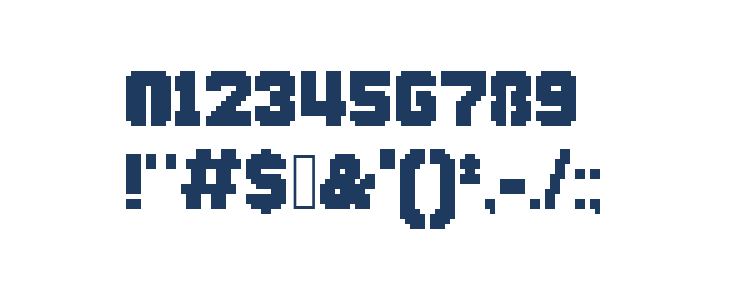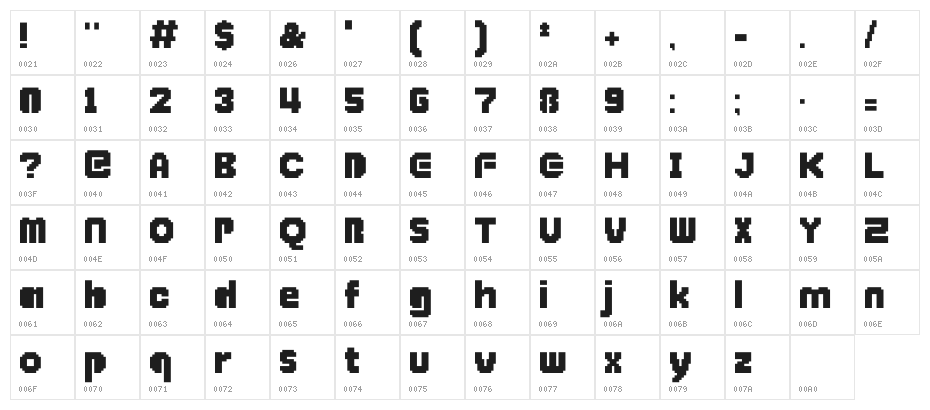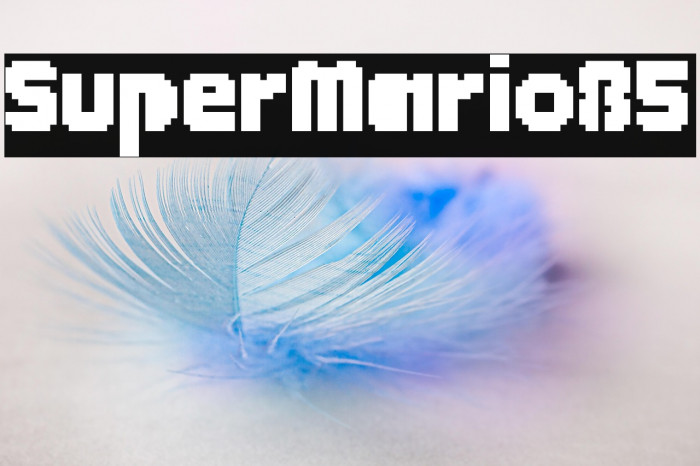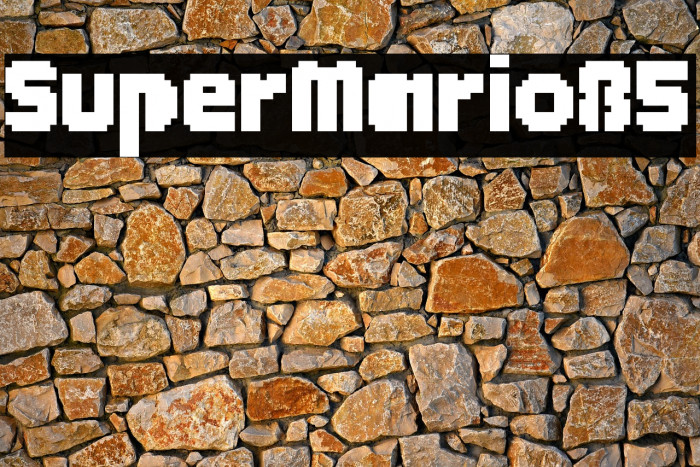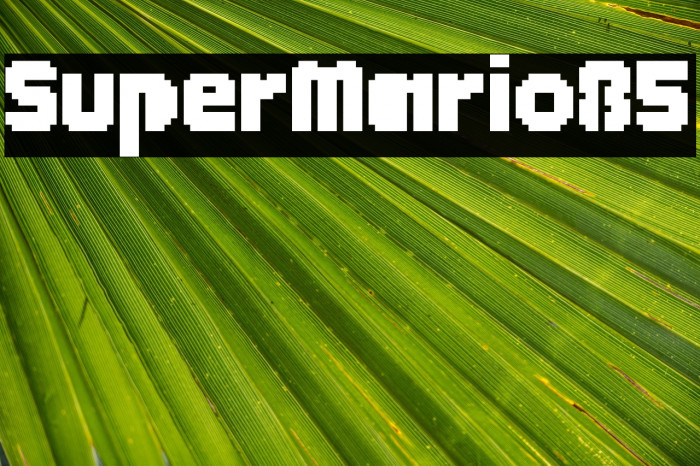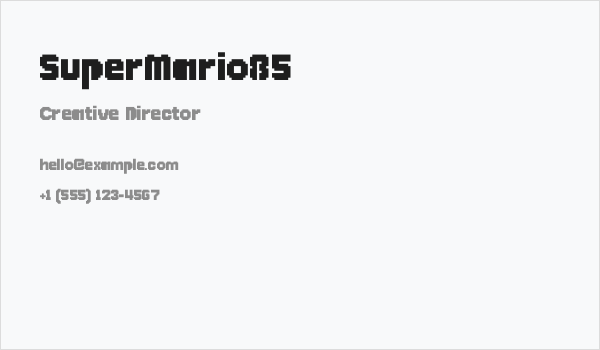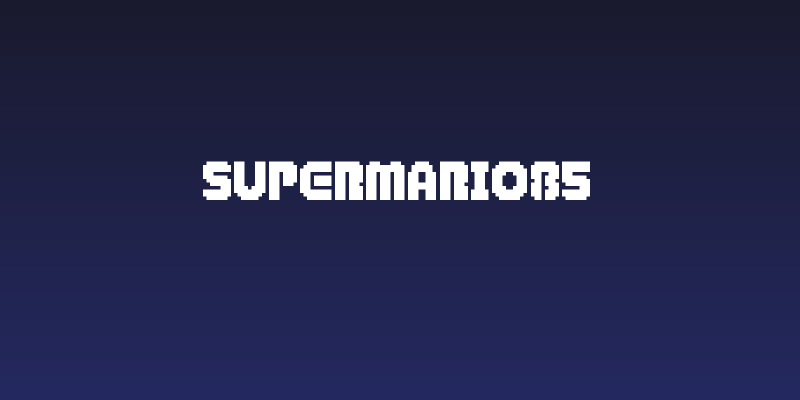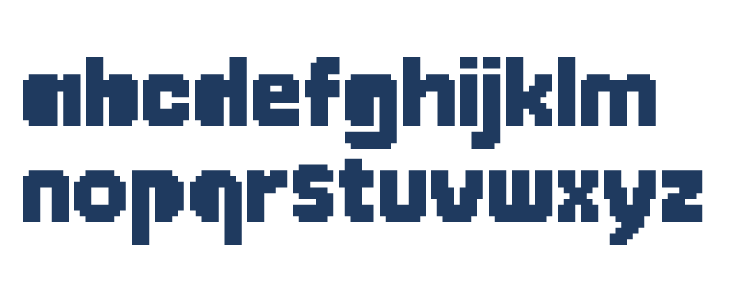
SuperMario85 Font
This font is a bold, pixelated typeface reminiscent of classic video game graphics. Each character is constructed with a blocky, grid-like appearance, giving it a retro, digital feel. The uppercase and lowercase letters maintain a consistent height, contributing to a uniform look. Numbers and special characters follow the same pixelated style, ensuring cohesion across all elements. The font's design is straightforward and geometric, making it highly legible even at smaller sizes. Its nostalgic aesthetic is perfect for projects that aim to evoke a sense of vintage gaming or digital nostalgia.
| Overall Style | Vintage |
| Use Case | Logos, Headlines, Digital Art |
| Proposed Projects | Ideal for video game designs, retro-themed posters, digital art, and any project seeking a nostalgic gaming vibe. |